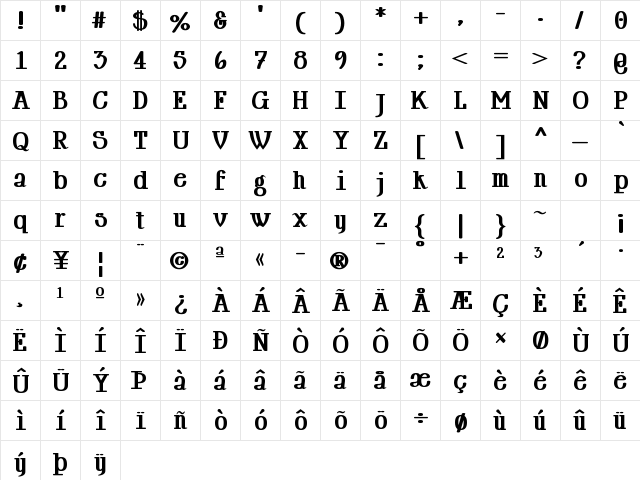
HappyPhantom Demi Regular Font Preview
HappyPhantom Demi Regular
HappyPhantom Demi Regular Font Details
| Designer | Lauren Thompson, "Nymphont" |
Design Context for HappyPhantom Demi Typeface
HappyPhantom Demi takes a measured approach to typography — its balanced proportions and neutral character make it a reliable workhorse for both digital and print work.